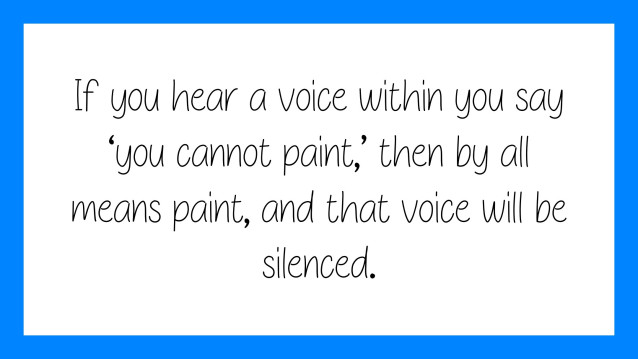
Tarusa Light Font
Tarusa Light Font is a simple and friendly handwritten font. Its natural and unique style makes it incredibly fitting to a large pool of designs. The only limit is your imagination!